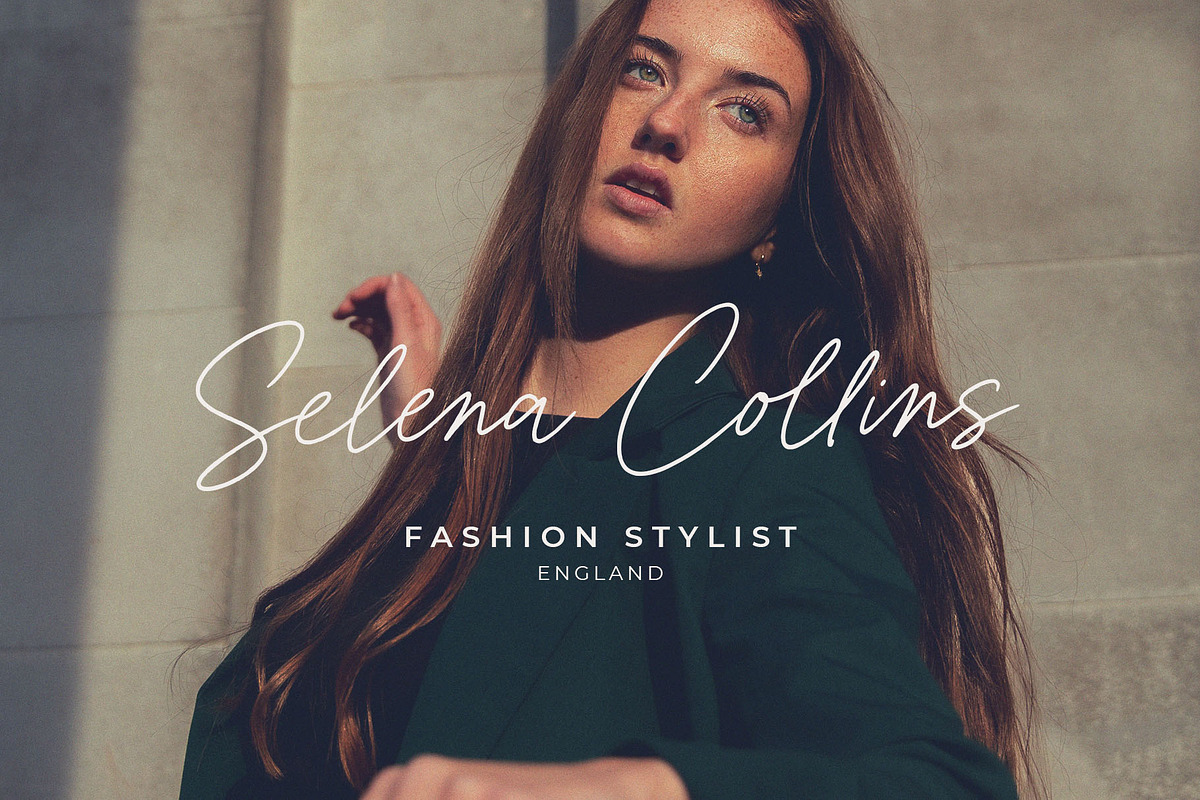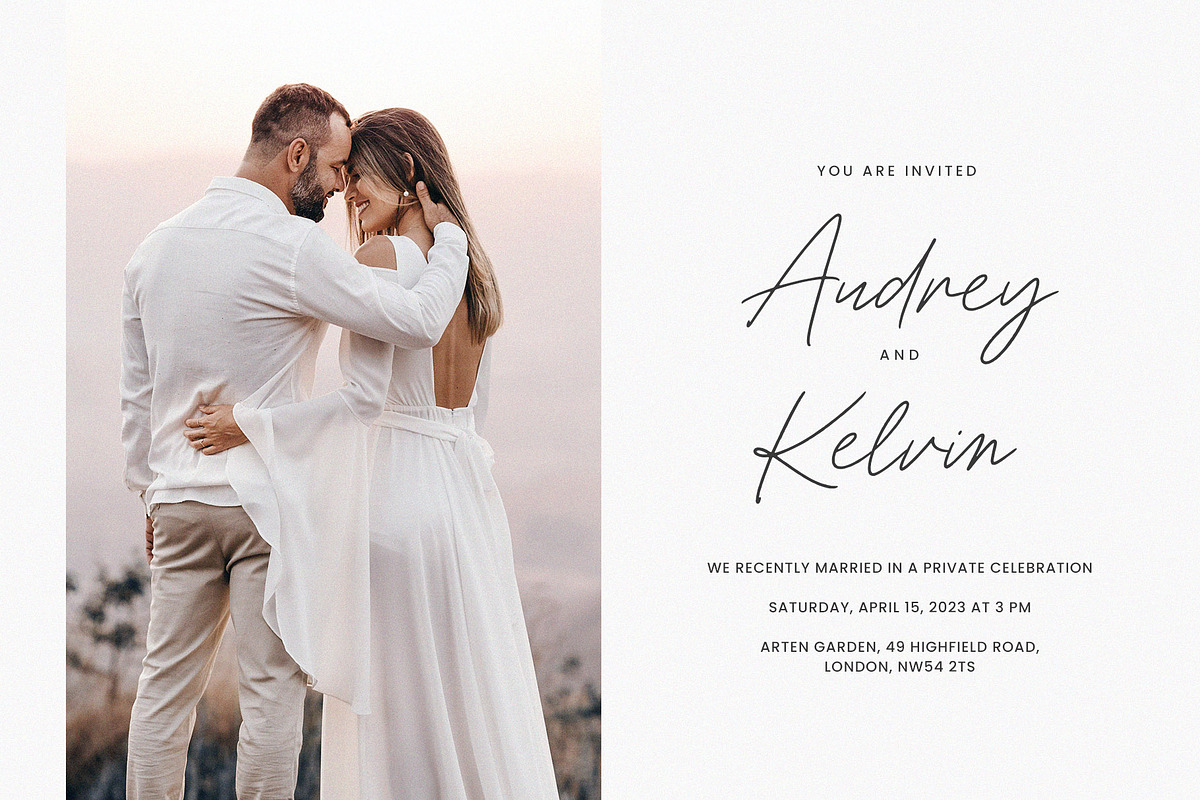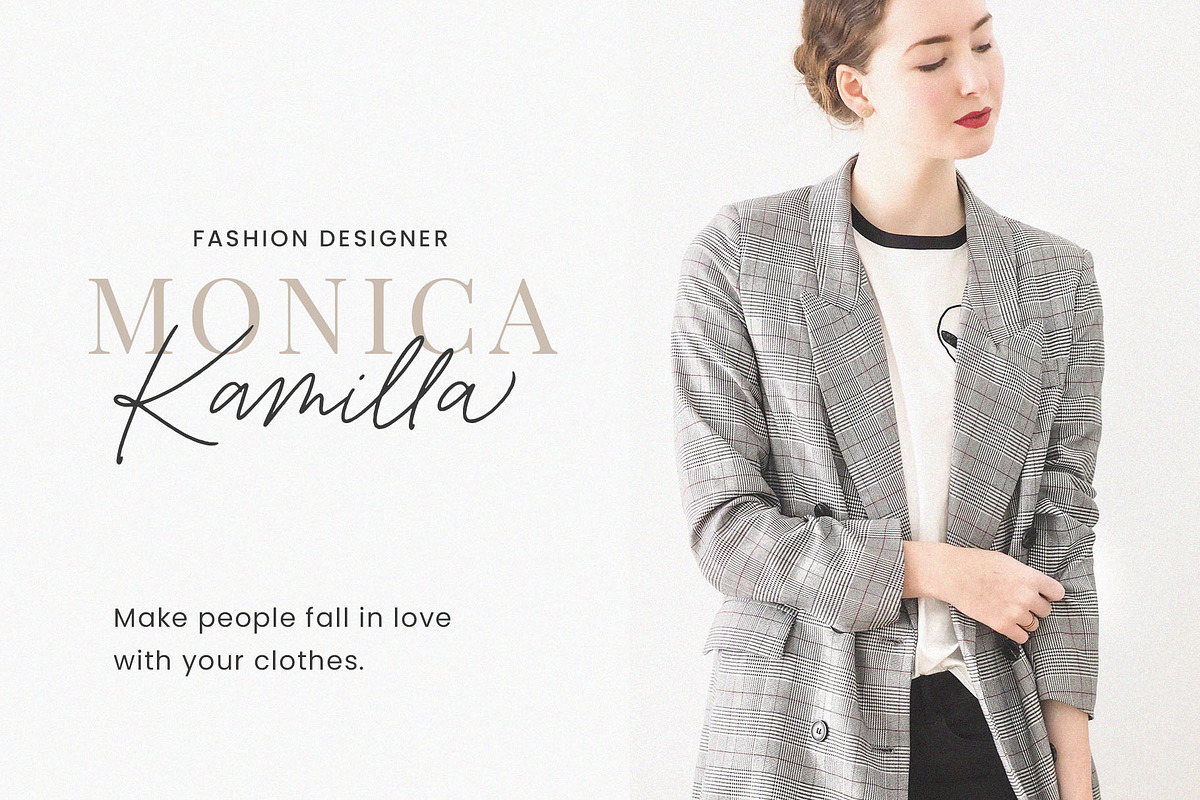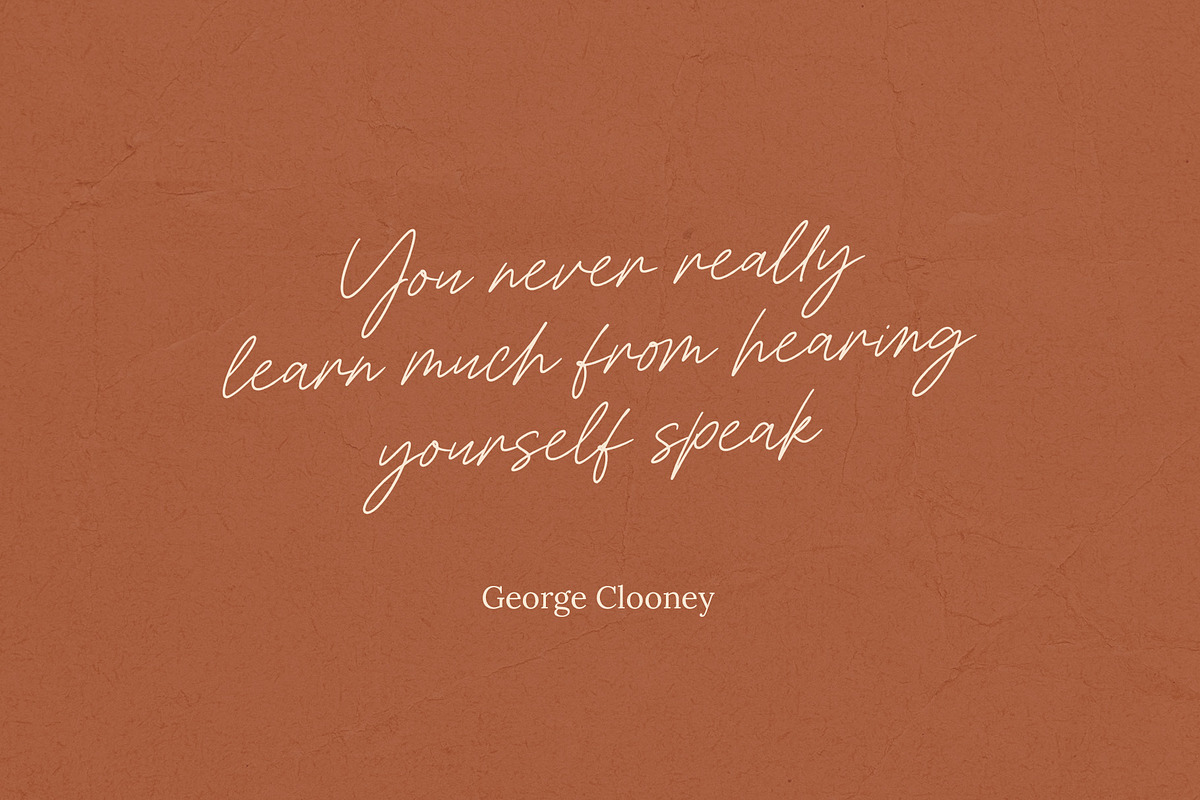
Constane is a modern and stylish handwritten font. It can be used for a variety of projects such as branding, labels, photography, invitations, stationery, wedding designs, social media posts, advertising, product packaging, product design, and more.